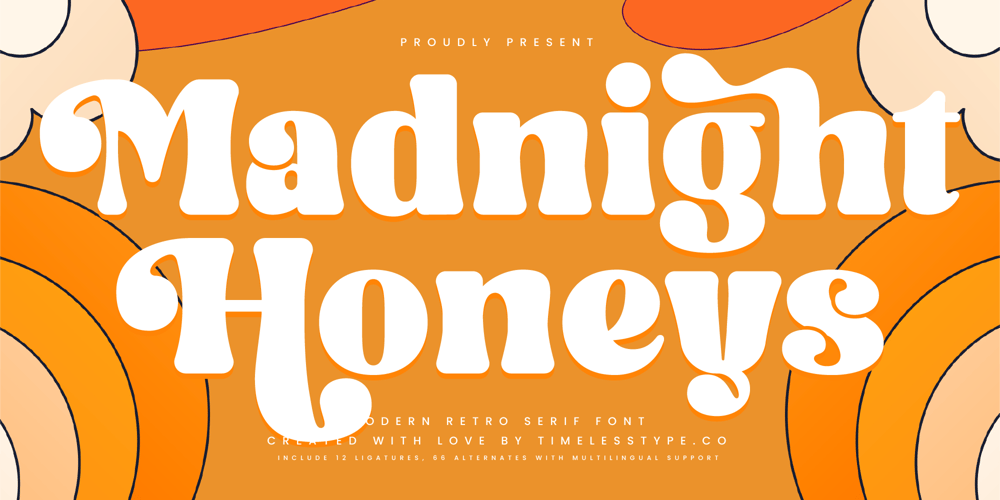
Madnight Honeys
Madnight Honeys font
Madnight Honeys Font Family was designed by Heru Utama Putra and published by Timelesstype Studio. Madnight Honeys contains 1 styles and family package options. Madnight Honeys – Modern Retro Serif , from Timelesstype , Suitable for any projects such as: logos, branding projects, homeware designs, product packaging, mugs, quotes, posters, shopping bags, t-shirts, book covers, name card, invitation cards, greeting cards, label, photography, watermark, special events, and all your other luxury and beautiful projects that need a Luxury Serif taste.